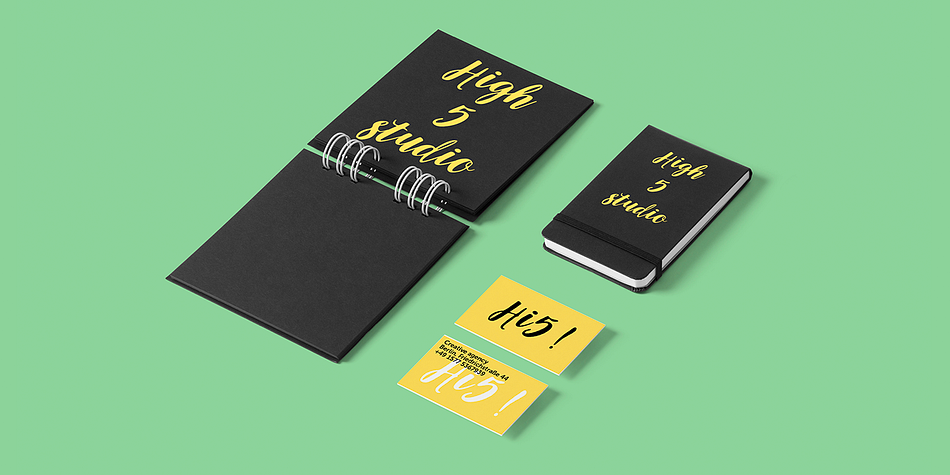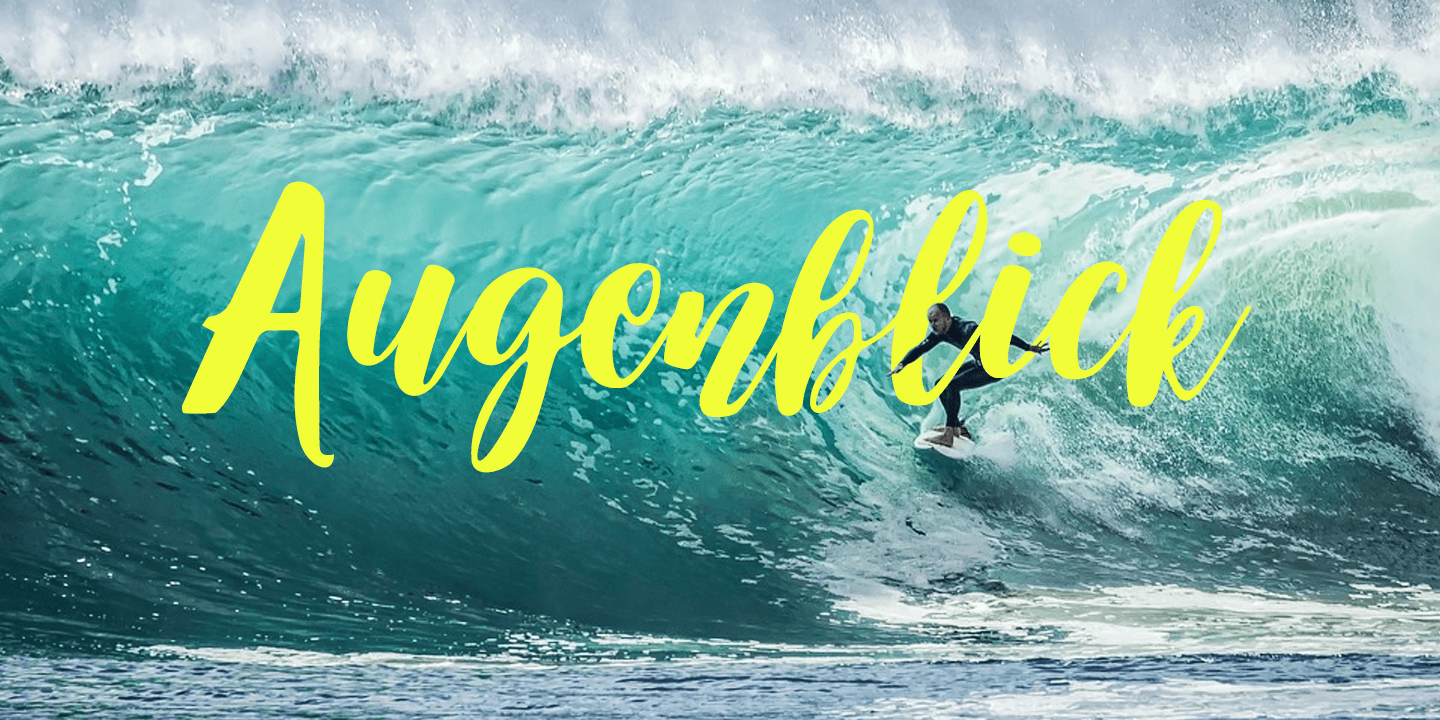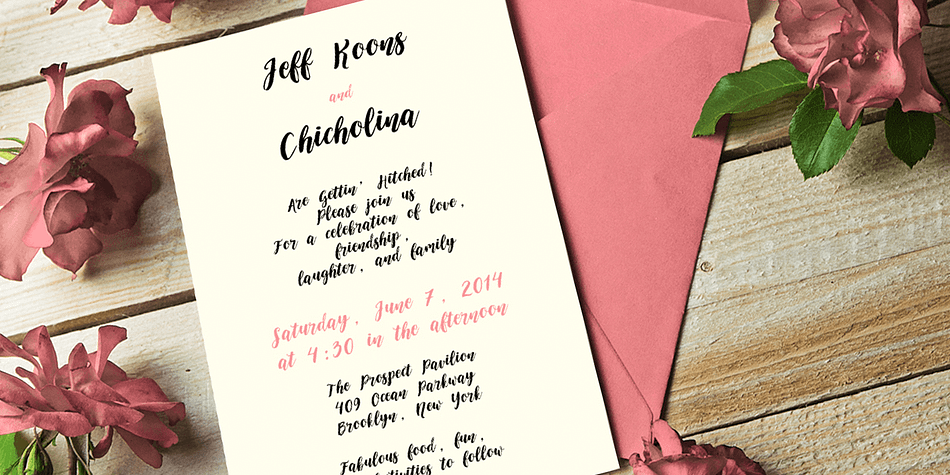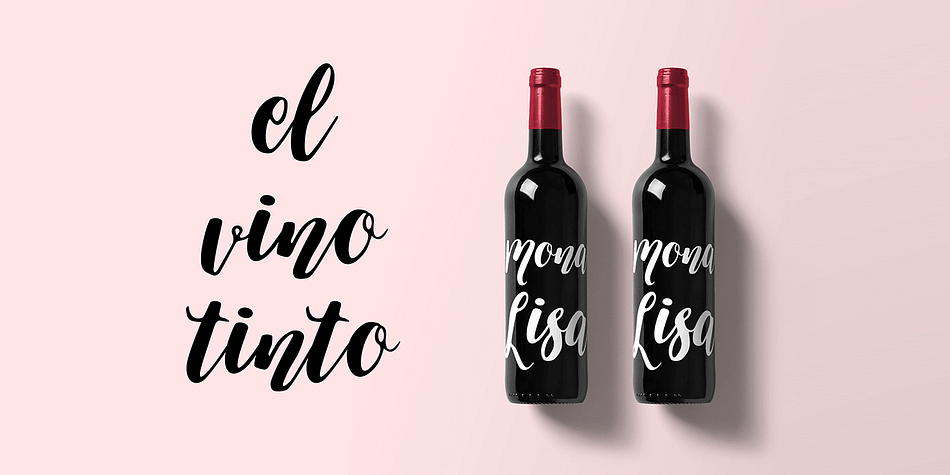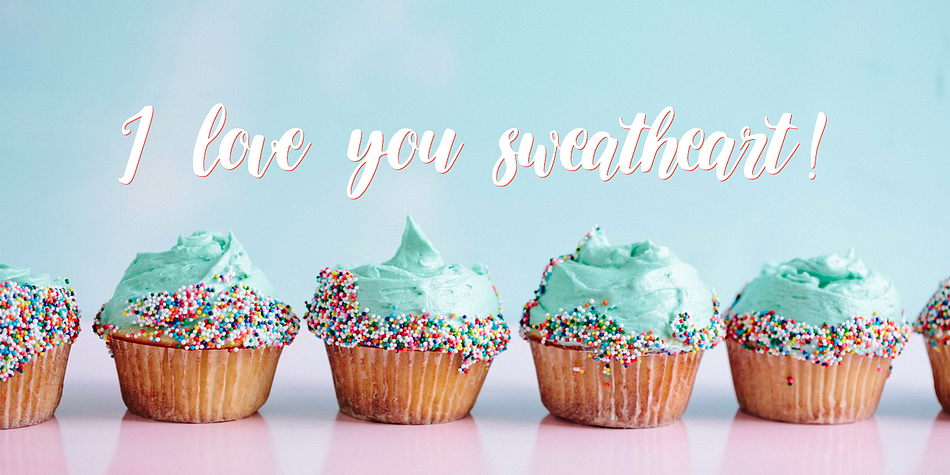
Designed by Alex Etewut, Augenblick is a script and modern calligraphy font published by Etewut.
Introducing Augenblick!
This new font will look great in many designs, be it wedding invitations, a bottle of wine or greeting cards.
Augenblick features multi-lingual support.